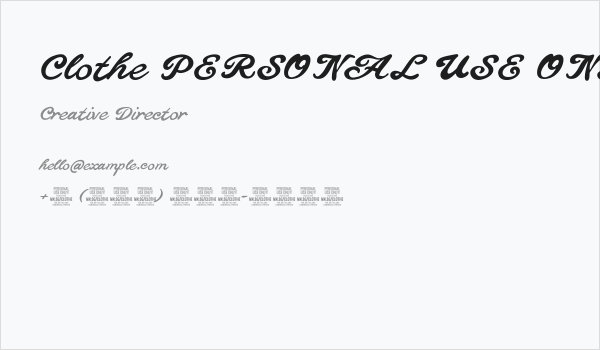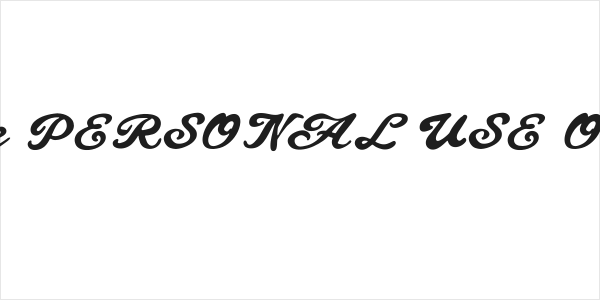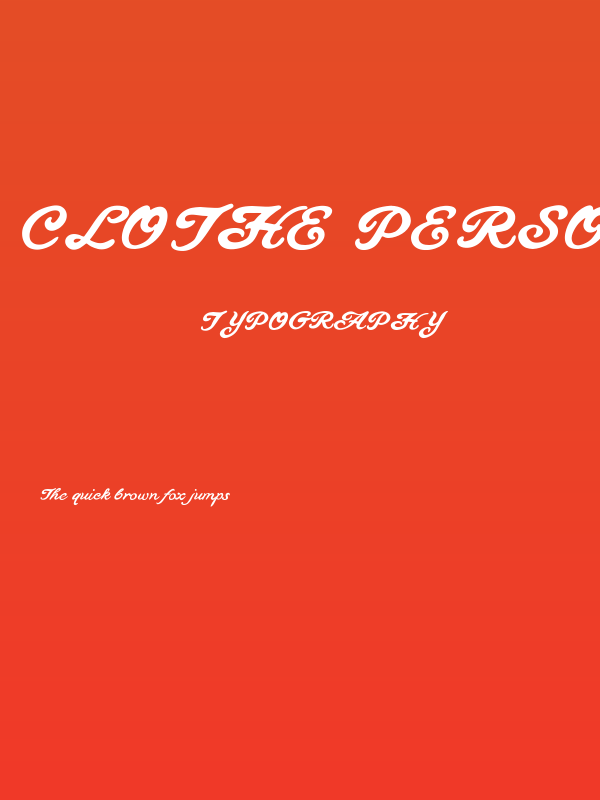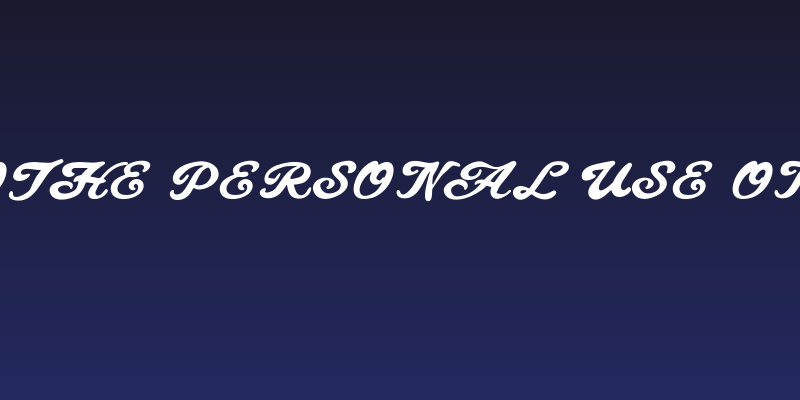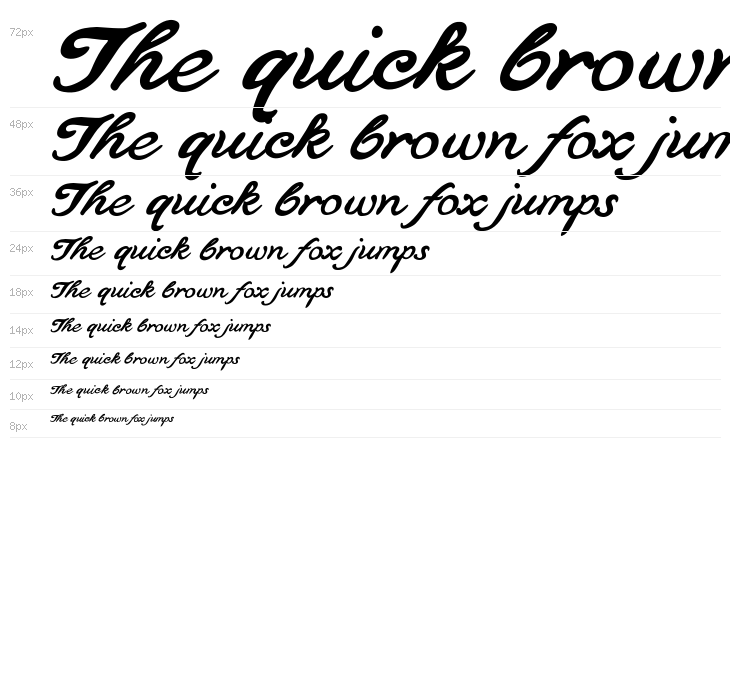
Clothe PERSONAL USE ONLY Font
Clothe PERSONAL USE ONLY Description
This font features a flowing, cursive style with elegant, sweeping strokes that give it a handwritten appearance. The uppercase letters are bold and expressive, with distinctive loops and curves that add a sense of movement and grace. The lowercase letters maintain a consistent style, with smooth connections between characters, enhancing readability while retaining a personal touch. The numerals and special characters are crafted with the same attention to detail, ensuring a cohesive look across all elements. This font's overall design exudes sophistication and charm, making it suitable for projects that require a personal or artistic flair.
| Proposed Projects | Ideal for wedding invitations, greeting cards, personal branding, and artistic projects. |